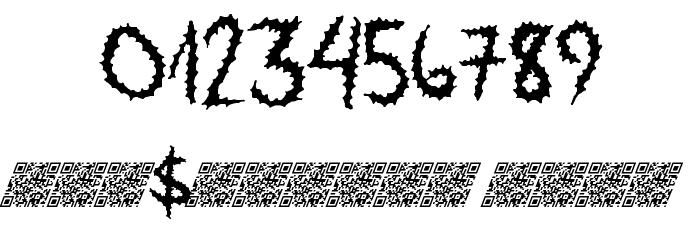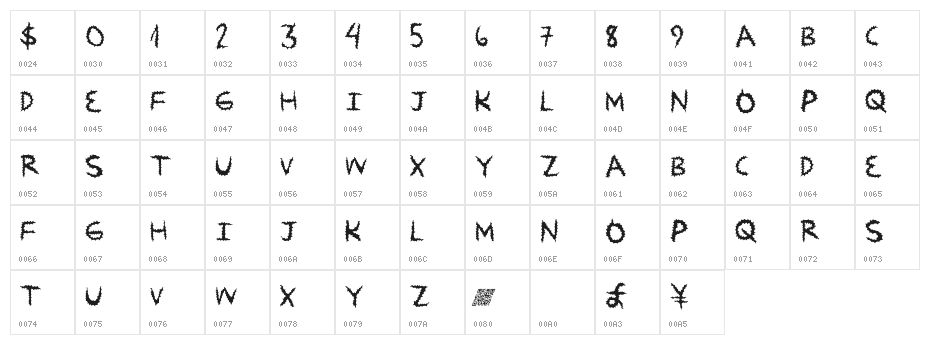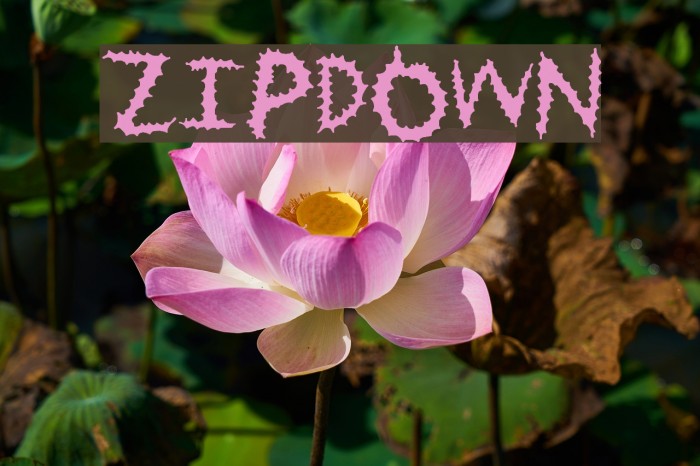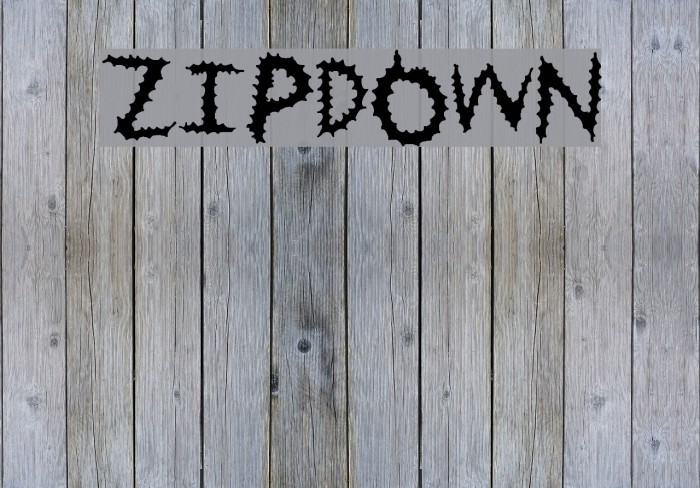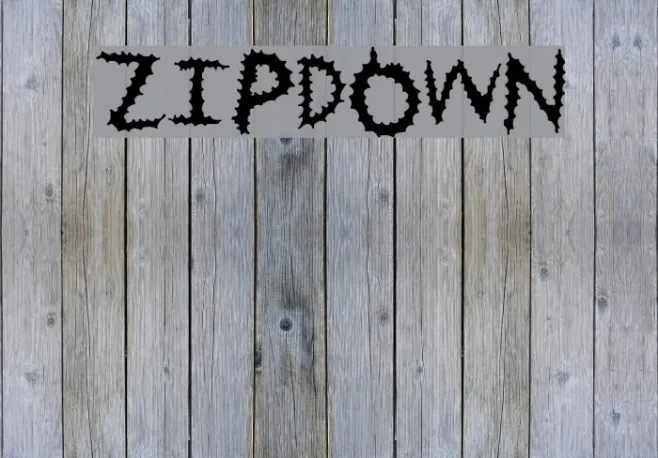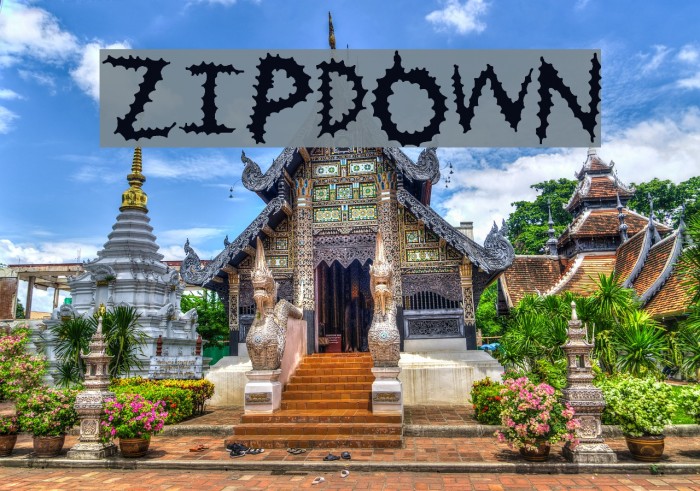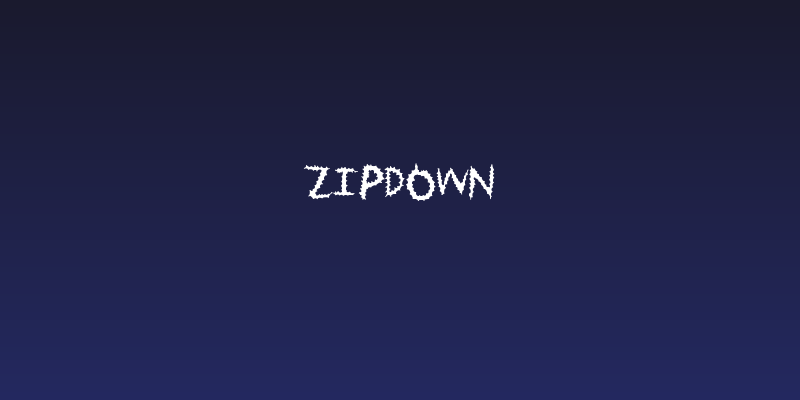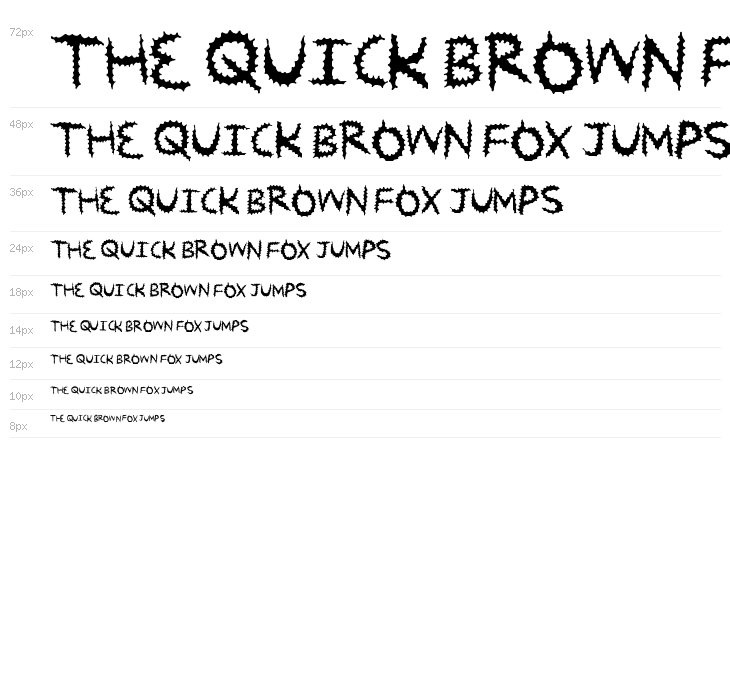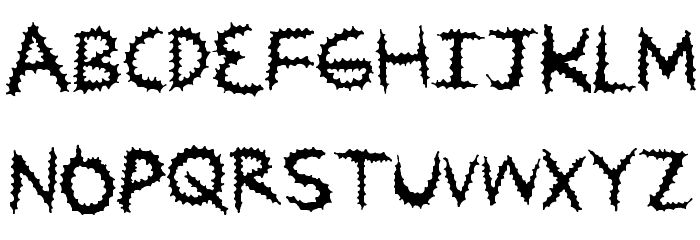
ZipDown Font
ZipDown Description
This font features a jagged, edgy design that gives each character a dynamic and energetic appearance. The sharp, irregular edges create a sense of movement and intensity, making it stand out in any design. The uppercase and lowercase letters maintain a consistent style, with numbers and special characters following the same aesthetic. This font is ideal for projects that require a bold and unconventional look, such as posters, album covers, or Halloween-themed designs. Its unique style is sure to capture attention and convey a sense of excitement and creativity.